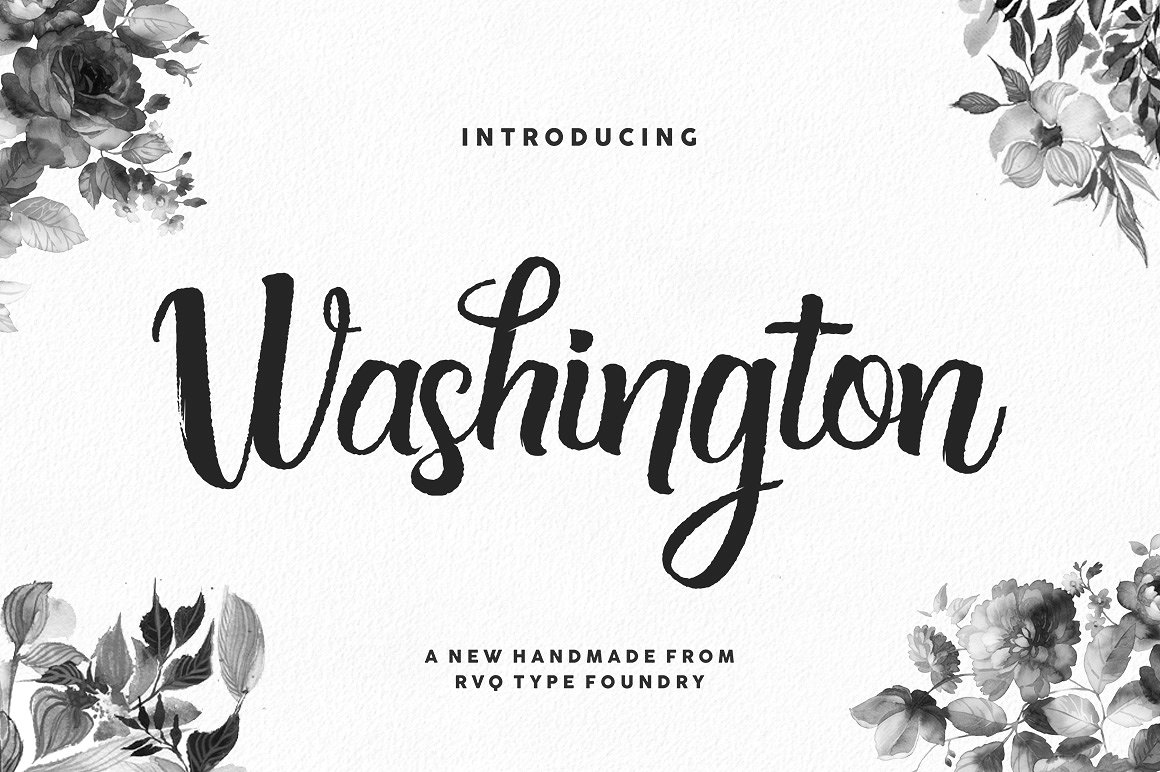
Washington Typeface is new font from Rvq Typefoundry, new script font elegant and vintage feel character set. To create the beautiful combination, just mix the uppercase and lowercase then mix with the alternative glyphs. The Washington typeface includes a full set of capital and lowercase letters, as well as multi-lingual support,numerals & some extra glyphs.